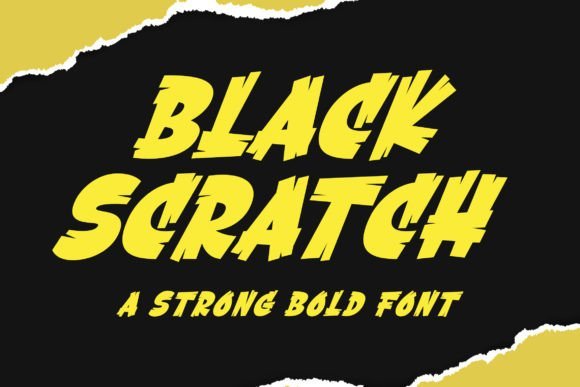
The Perfect Blend of Bold and Beautiful
Have you ever stared at a blank page, waiting for the perfect font to spark your creativity? For designers, the search for that one special typeface can be a daunting task. But what if I told you that you’ve just found it? Say hello to the Black Scratch Font – a game-changing addition to your design arsenal.
Designed to add an extra layer of sophistication and playfulness to your creations, this font is perfect for designers looking to make a statement. With its robust and powerful aesthetic, the Black Scratch Font is an ideal choice for a wide range of applications, from book covers to merchandise and logos.
Black Scratch Font Key Features
- Font Family: Black Scratch
- Unique Characteristics: Hand-drawn, distressed, and textured design with a unique, edgy feel
Black Scratch Font Review
Overall, I have mixed feelings about the Black Scratch Font. It’s an interesting addition to the font family, but its usage is limited by its unique aesthetic.
- ✨ Uniqueness: The font stands out due to its distressed, scratched look, which can add a touch of edginess to designs.
- ✨ Versatility: Black Scratch Font can be used in various contexts, from grunge-style posters to modern web design.
- ✨ Expressiveness: The font effectively conveys a sense of rebellion or nonconformity, making it suitable for designs that need to evoke a strong emotion.
- ⚠️ Readability: Due to its distressed look, the font may be challenging to read, especially at smaller sizes or in complex compositions.
- ⚠️ Contextual suitability: The font may not be the best choice for designs that require a professional or formal tone.
- ⚠️ Overuse: Its edgy aesthetic can quickly become overpowering, making it essential to use the font judiciously.
Overall, Black Scratch Font is a great addition to a designer’s toolkit, but it’s essential to use it thoughtfully to avoid overwhelming the design. Its unique look can add a lot of character to a project, but it’s crucial to consider the context and balance it with other design elements.
Some tips for getting the most out of the Black Scratch Font include:
– Using it in combination with bold or italic text to create a dramatic effect.
– Applying it to headings or titles to create a sense of hierarchy.
– Using it in creative projects such as posters, flyers, or social media graphics.
– Experimenting with different font sizes and styles to create a unique look.
Alternatives to Black Scratch Font
Industrial Script
Industrial Script is a bold, cursive font that can be used to convey a sense of industrial or vintage style. It is a good alternative to Black Scratch Font for designers who want to create a similar edgy feel without the scratched texture.
Comparison: Industrial Script lacks the textured effect of Black Scratch Font but makes up for it with its bold, expressive strokes. It’s ideal for use in titles, headings, and other display typography.
Great Vibes is a handwritten font that features a mix of modern and vintage elements. It’s a good choice for designers who want to add a touch of personality and whimsy to their designs.
Comparison: Great Vibes has a more elegant and refined feel compared to Black Scratch Font, which can be a good choice for designers who want to add a bit of sophistication to their designs.
Rock Salt is a distressed font that features a rugged, weathered look. It’s a good alternative to Black Scratch Font for designers who want to create a similar rough-around-the-edges feel.
Comparison: Rock Salt has a more subtle, worn-in look compared to Black Scratch Font, which can be a good choice for designers who want to add a bit of texture and interest to their designs without overwhelming the viewer.